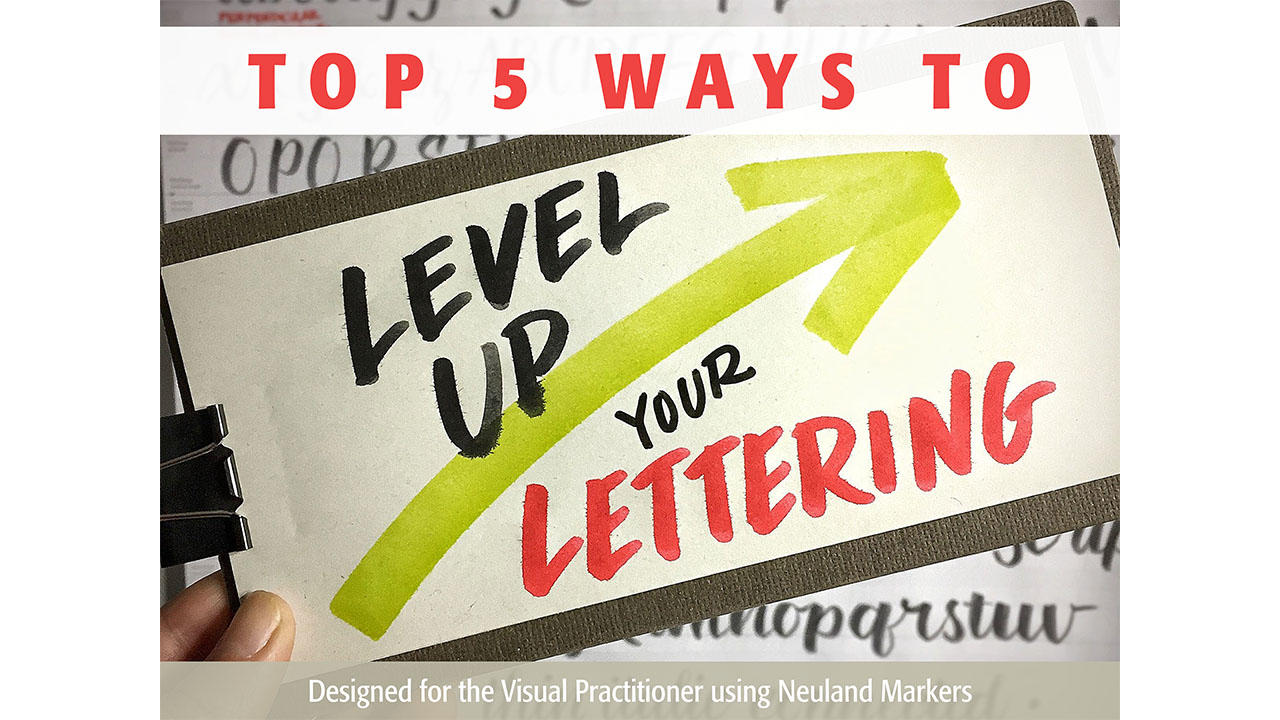
I love this question. It inspires me to see what kind of marks I can make with my Neuland markers.
In this excerpt, I share two quick exercises you can follow to create a baseline of lettering using the tools that you have and then challenge yourself to use the tools differently by applying them to new lettering styles.